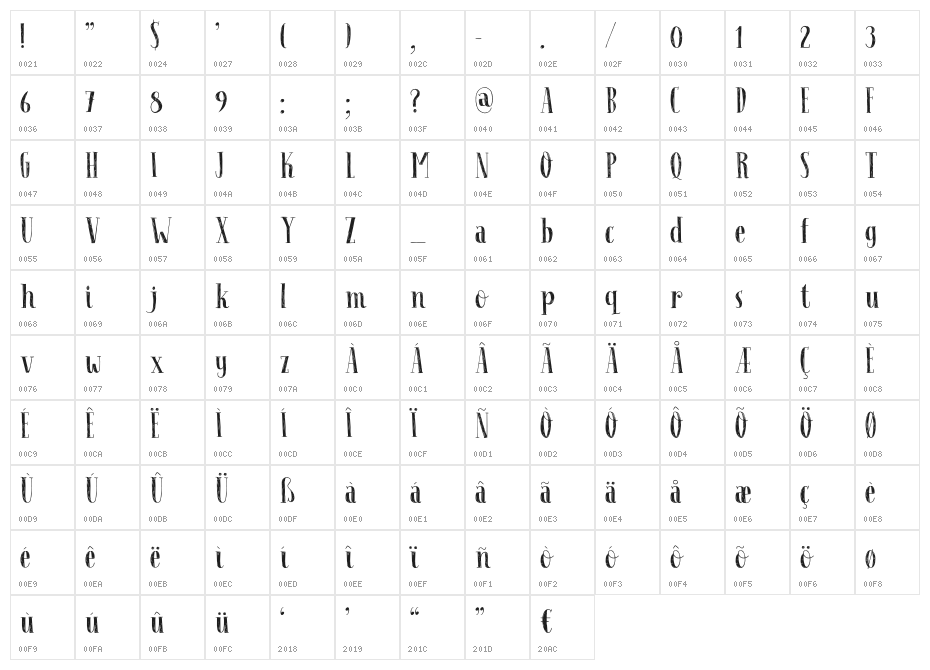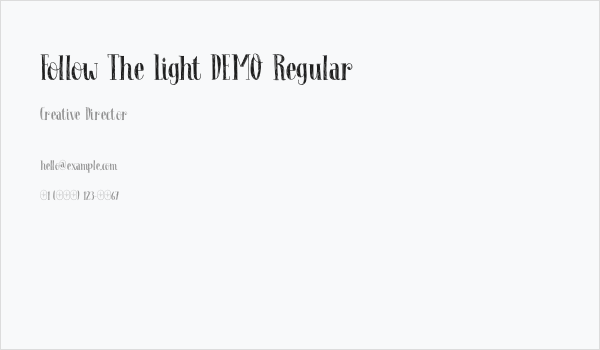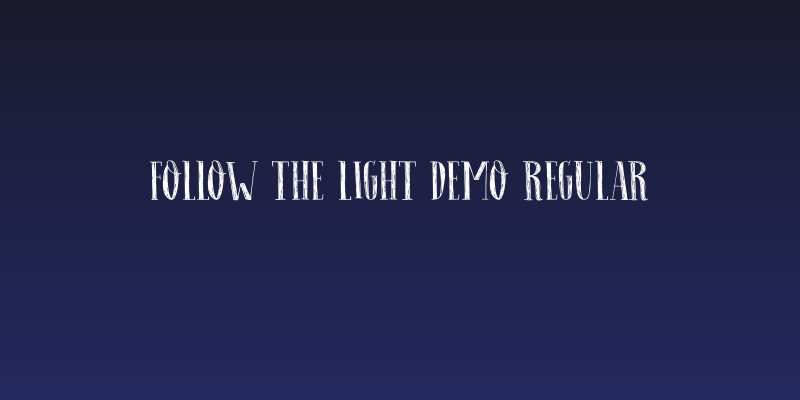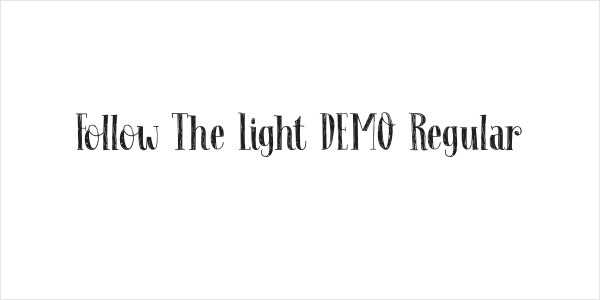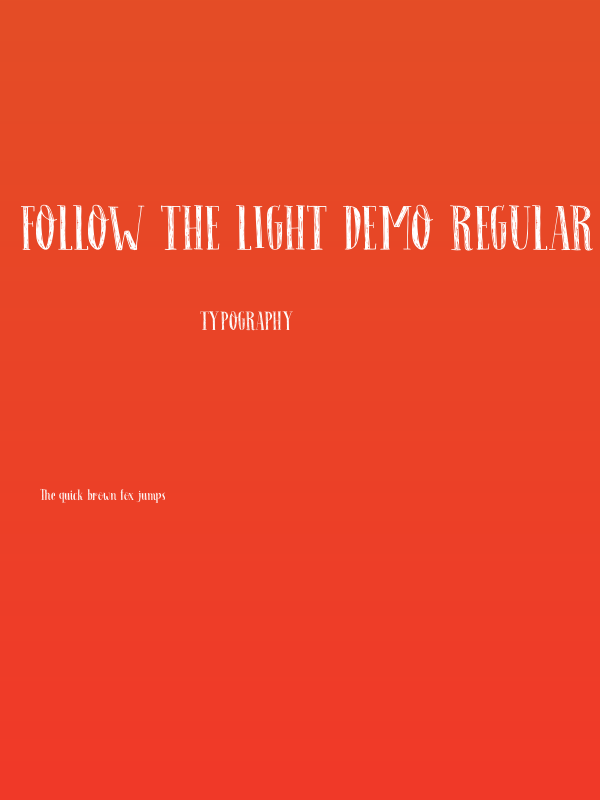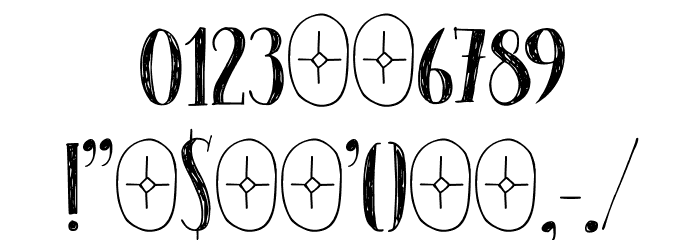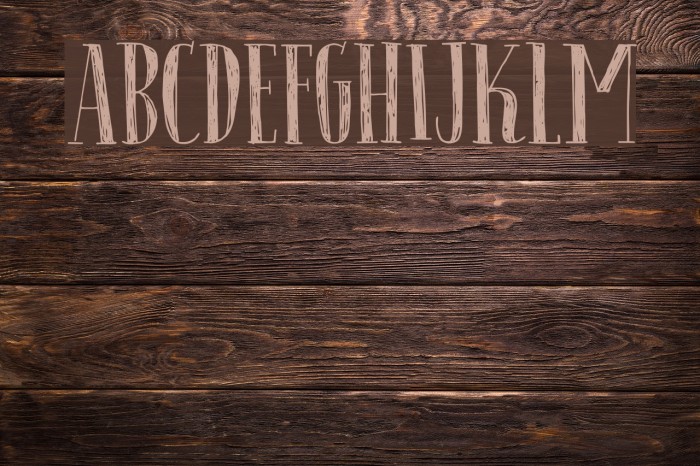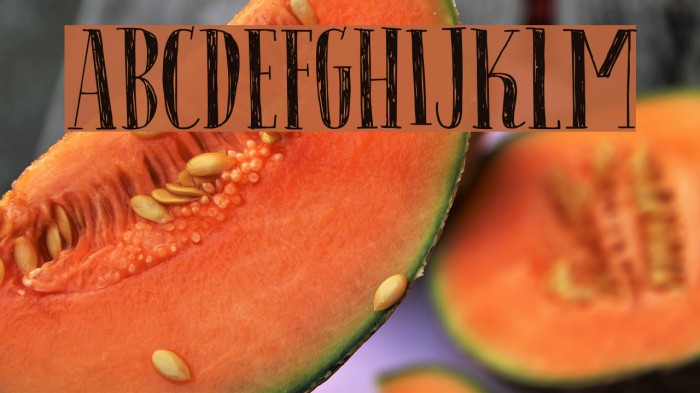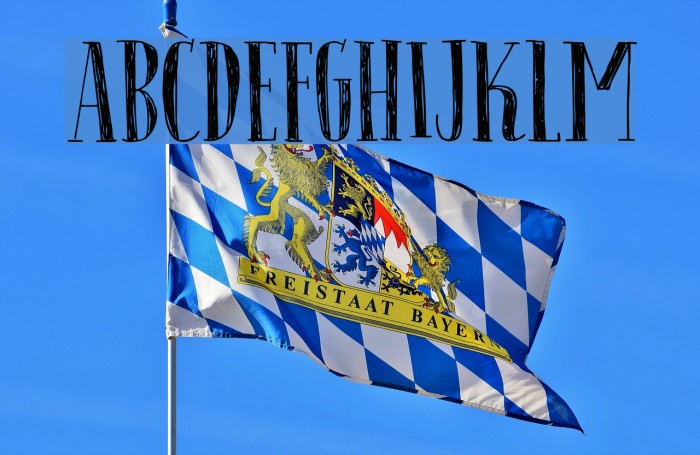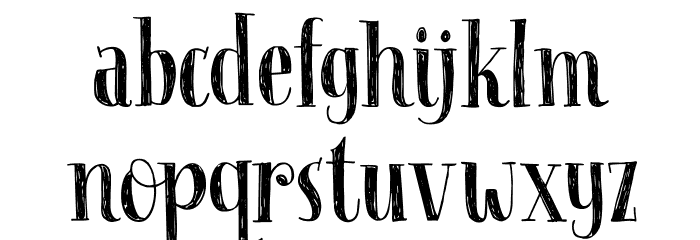
Follow The Light DEMO Regular Font
Follow The Light DEMO Regular Description
This font features a unique and artistic style with a hand-drawn appearance. The uppercase letters are tall and slender, with a slight irregularity that adds a whimsical touch. The lowercase letters maintain this playful aesthetic, with rounded forms and occasional flourishes. Numbers are bold and distinct, incorporating circular elements that enhance the font's decorative nature. Special characters are creatively designed, maintaining the overall theme. This font's sketch-like quality makes it stand out, offering a blend of elegance and creativity.
| Use Case | Headlines, Logos, Artistic projects |
| Proposed Projects | Ideal for creative projects such as posters, invitations, and artistic branding. It can also be used in children's books or any design requiring a playful yet elegant touch. |